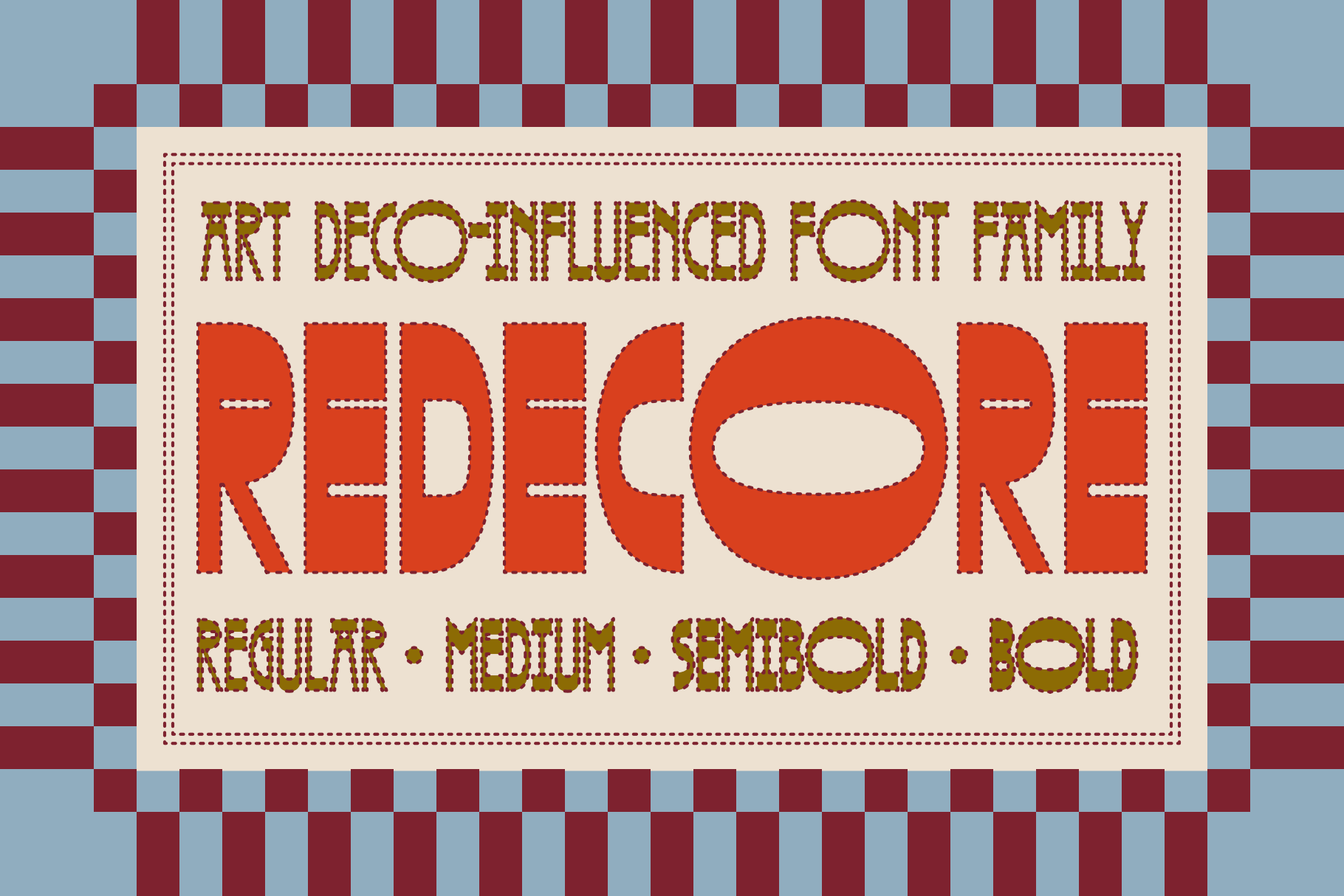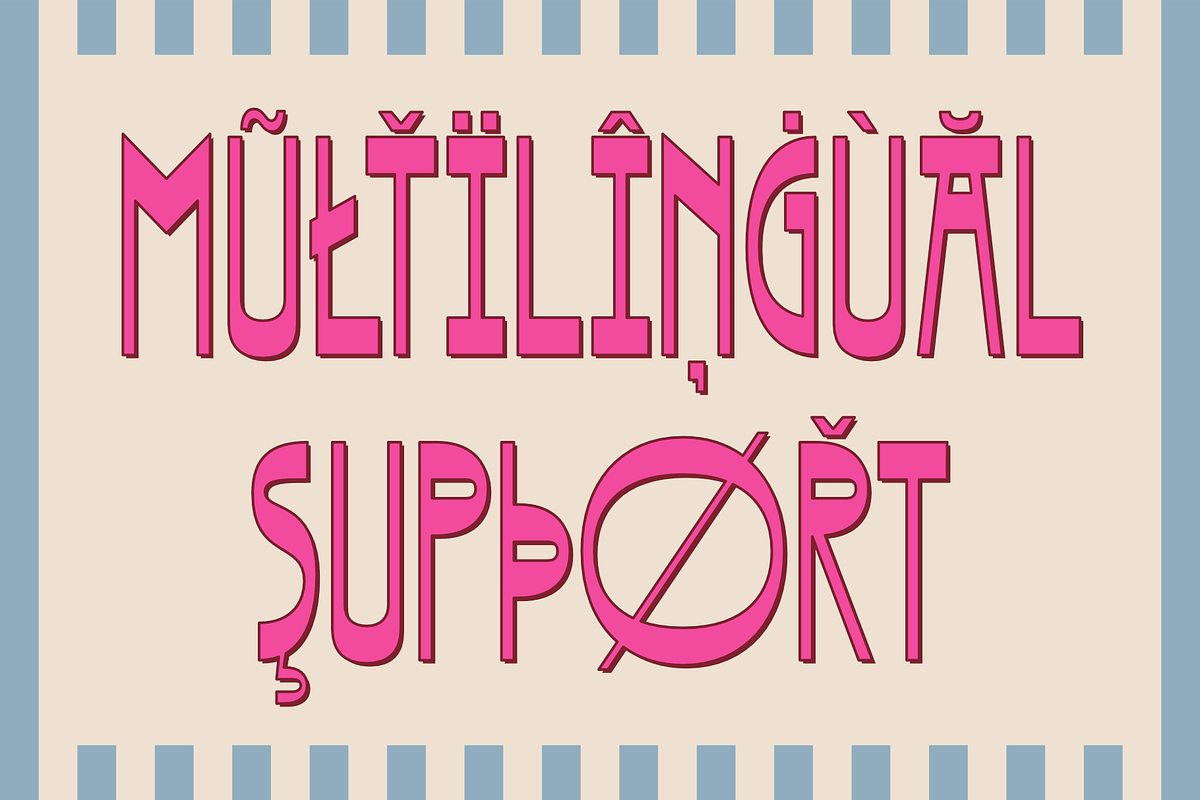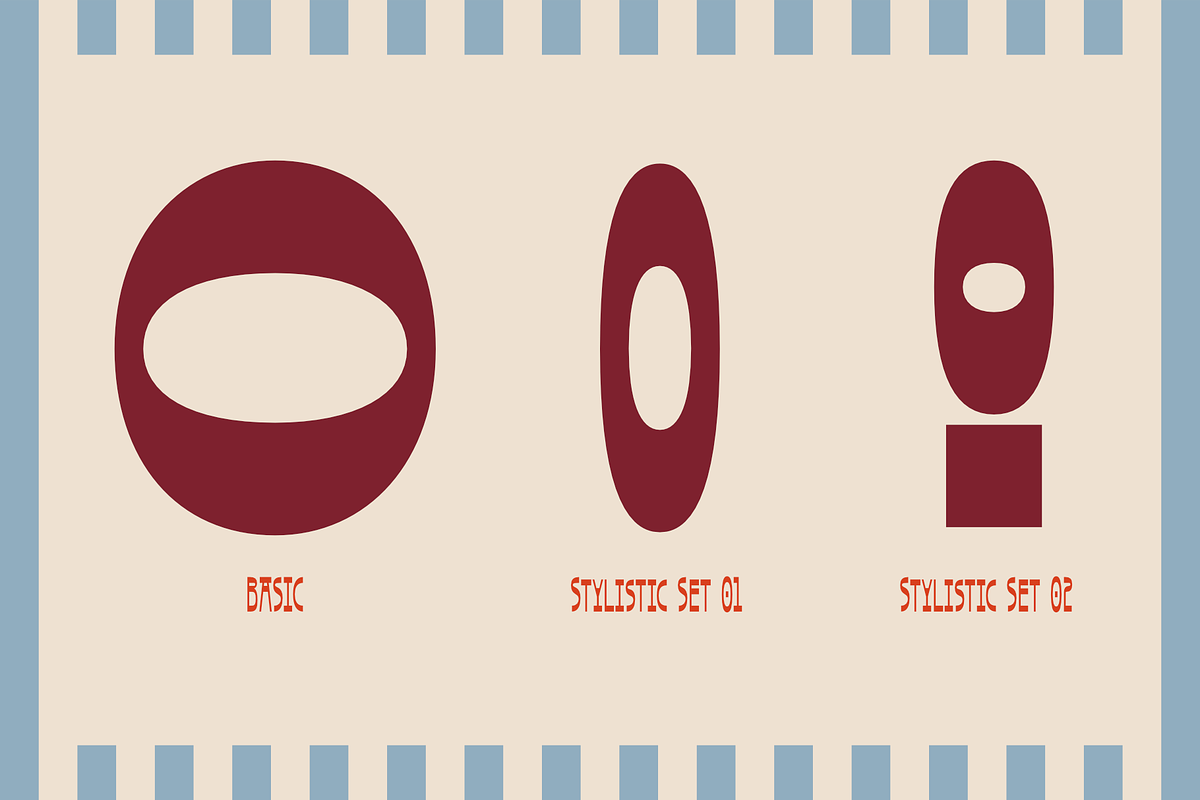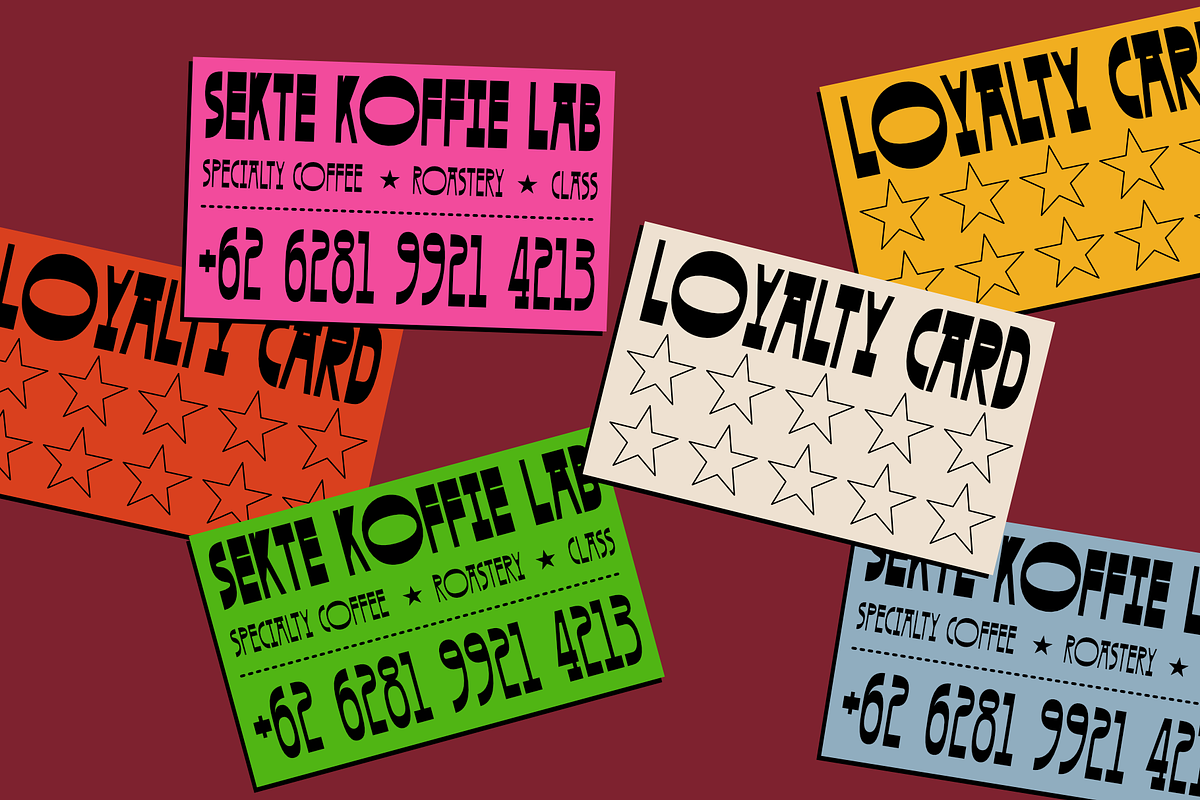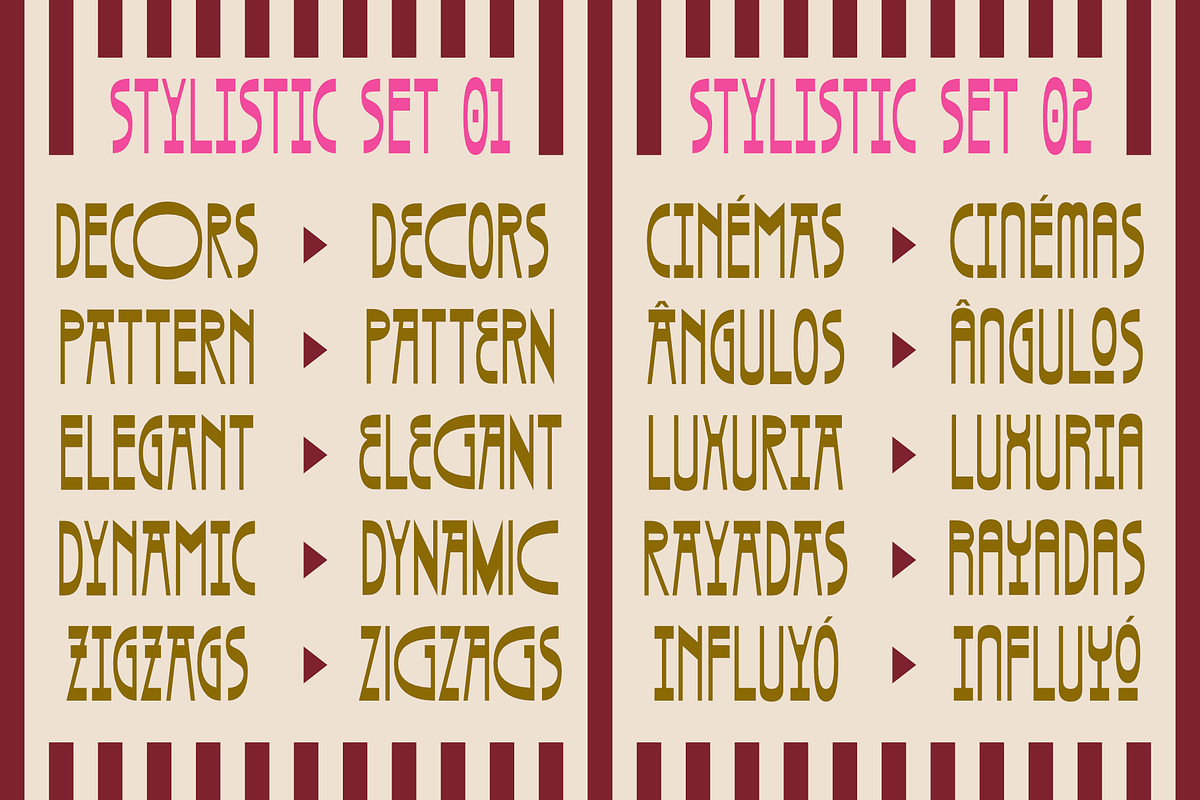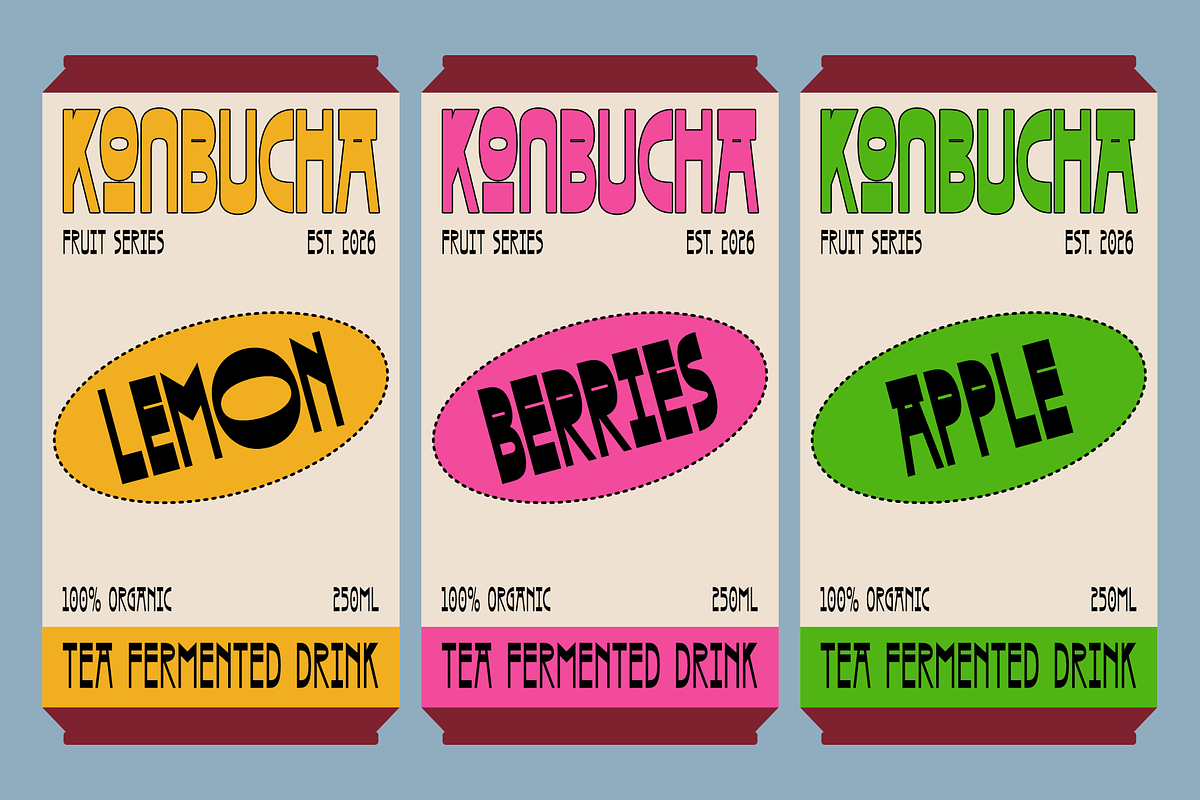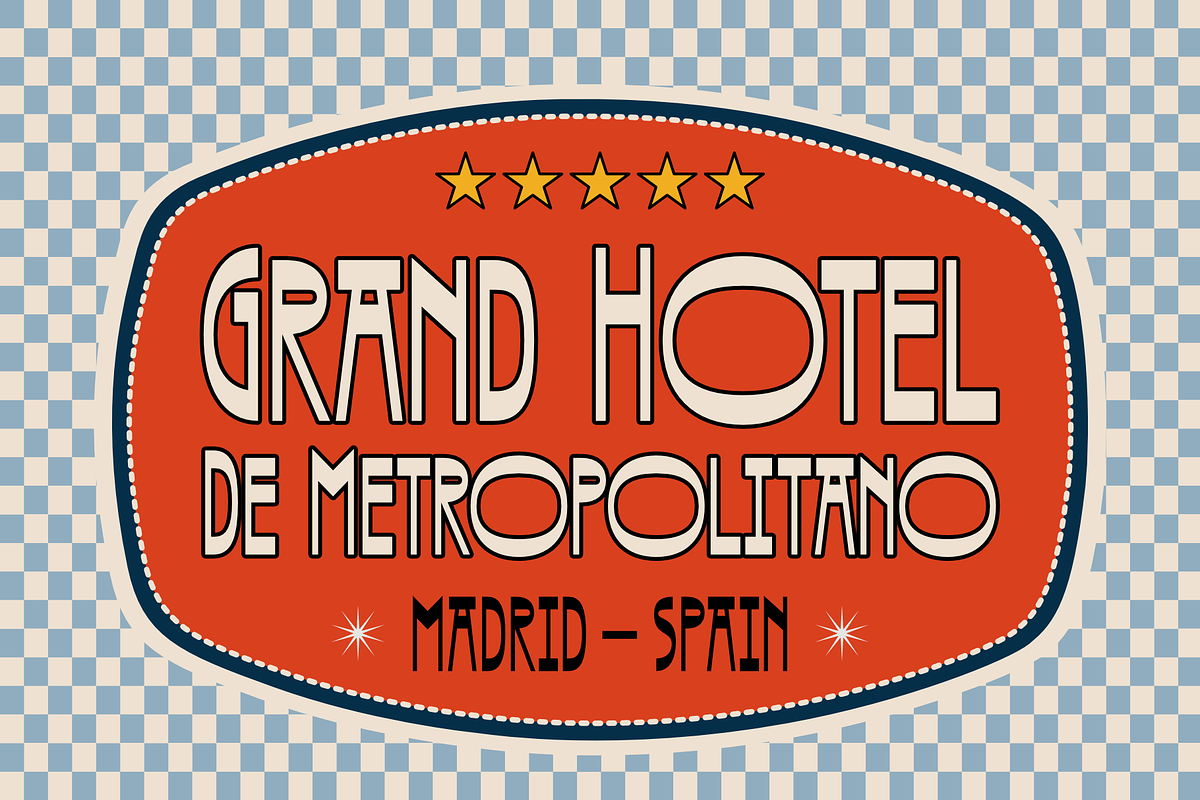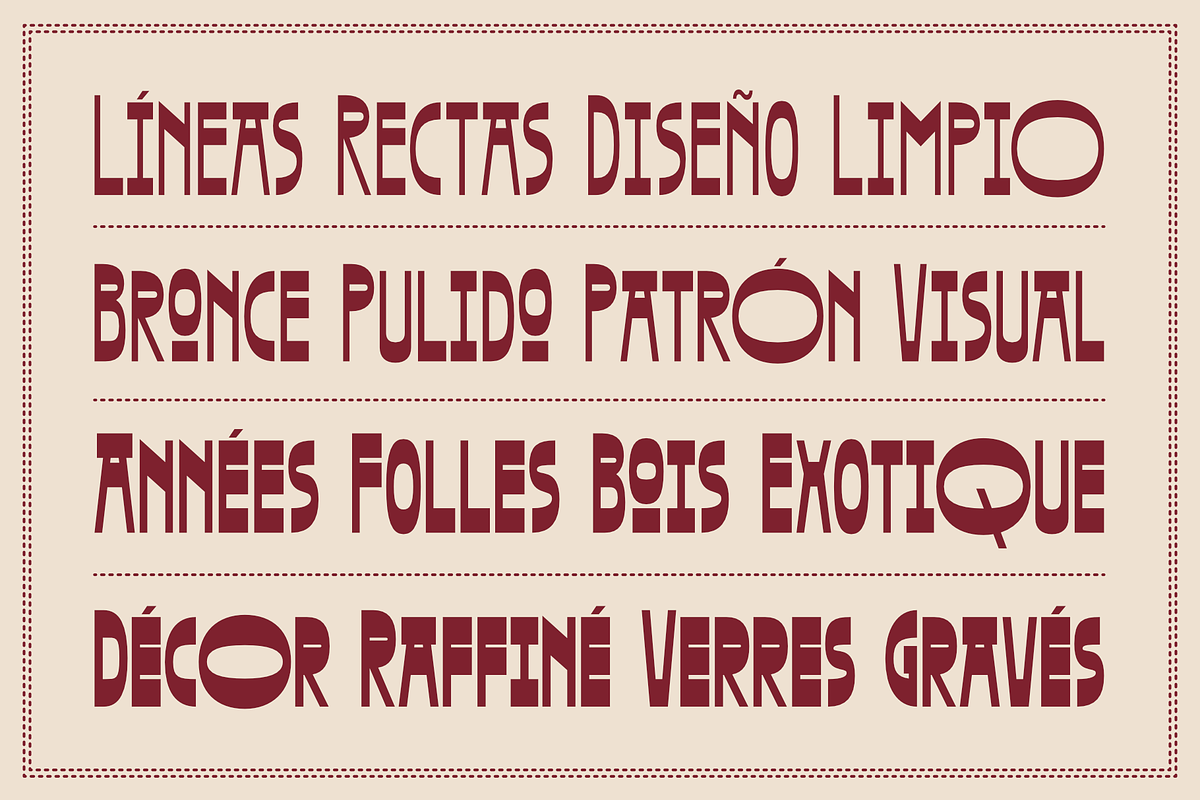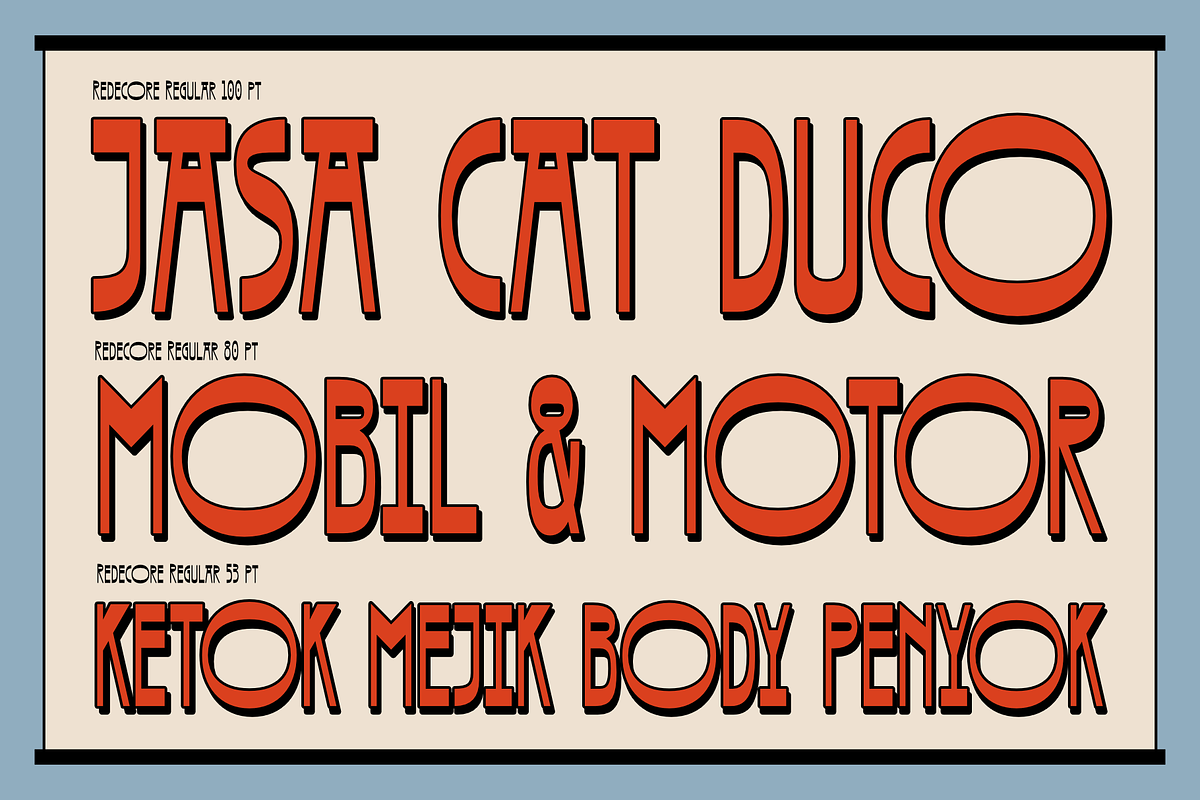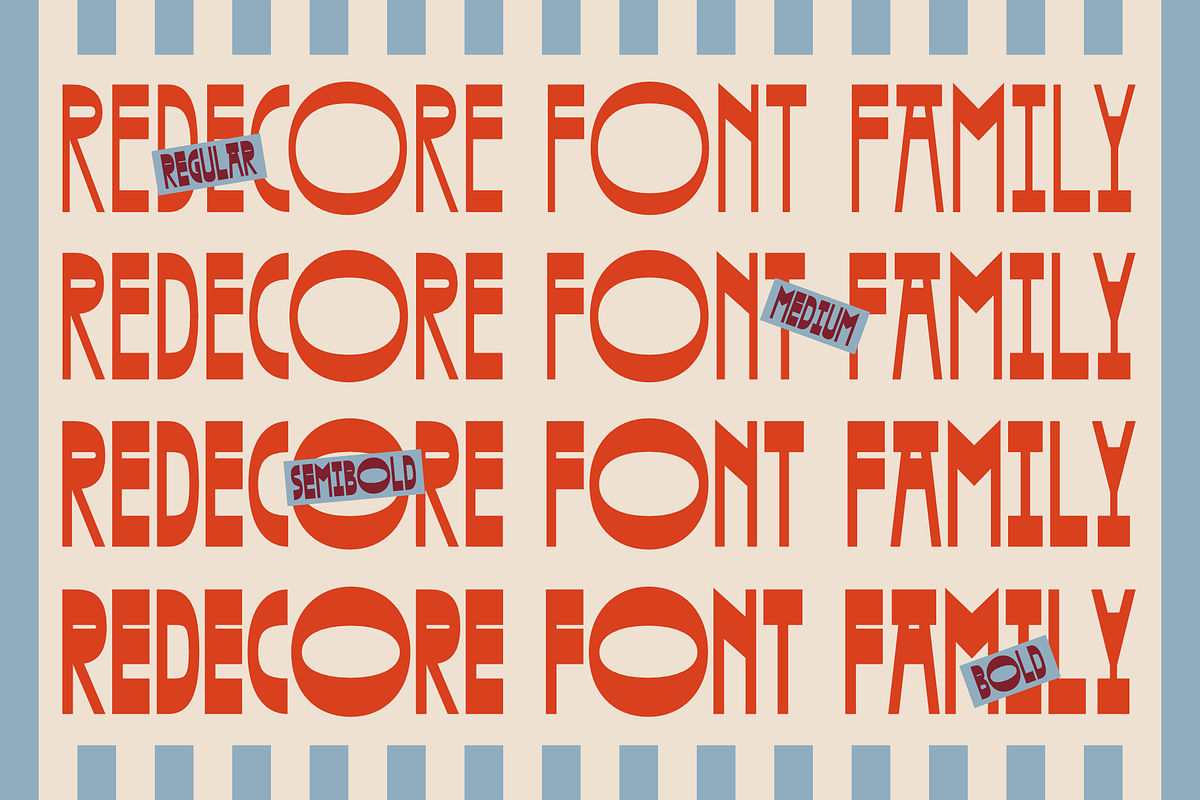
Redecore – Art Deco Font Family
Redecore is an Art Deco-inspired display font family that combines geometric forms, condensed proportions, and distinctive decorative details with a bold retro character.
Designed for expressive typography, Redecore is made to bring a strong vintage aesthetic to posters, branding, packaging, editorial layouts, signage, advertising, automotive graphics, and more.
The family includes four weights — Regular, Medium, Semibold, and Bold — giving you flexibility to create different levels of visual impact. Redecore also features Stylistic Sets with alternate character designs, allowing you to create more unique and dynamic typographic compositions.
Redecore works especially well for:
Art Deco posters
Retro branding and logos
Automotive and motorsport graphics
Vintage advertising
Packaging design
Editorial headlines
Signage and badges
Fashion graphics
Event and movie posters
Social media designs
4 weights: Regular, Medium, Semibold & Bold
Stylistic Sets
Uppercase characters
Numerals and punctuation
OpenType features
Redecore is designed for projects that need bold geometry, decorative details, and a distinctive Art Deco-inspired personality.